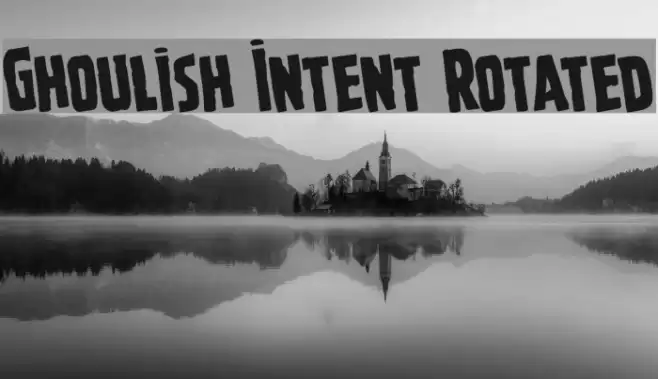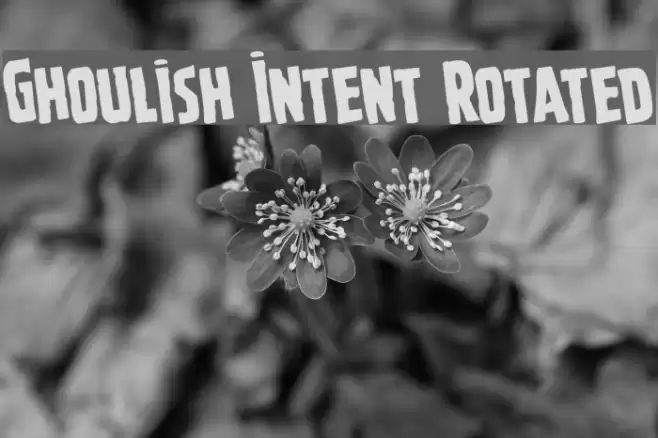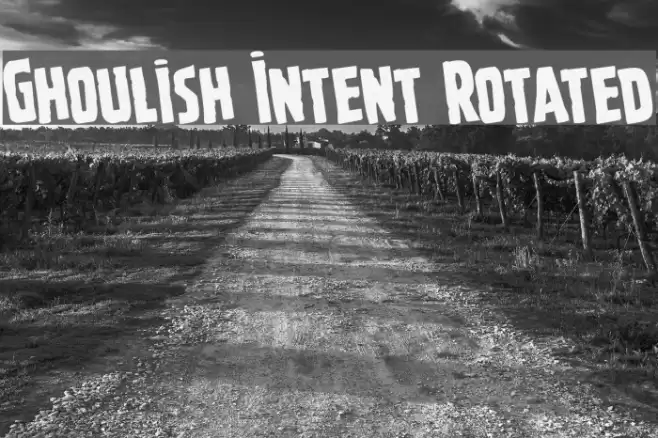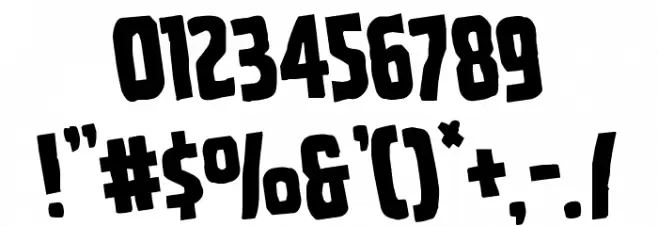
Ghoulish Intent Rotated Font
Ghoulish Intent Rotated Description
This font features a bold and playful design with a slightly irregular and hand-drawn appearance. The characters are thick and have a quirky, uneven baseline, giving them a dynamic and energetic feel. The uppercase and lowercase letters maintain a consistent style, with exaggerated curves and angles that add to the font's whimsical nature. The numbers and special characters are equally bold and match the overall aesthetic, making them suitable for attention-grabbing designs. The font's unique style is ideal for projects that require a fun and informal touch.
A bold, playful font with a hand-drawn, irregular style from Horror fonts.
- Proposed Projects: Perfect for Halloween-themed designs, children's book covers, playful posters, and quirky branding.
- Overall Style: Playful, Quirky
- Use Case: Headlines, Posters, Branding